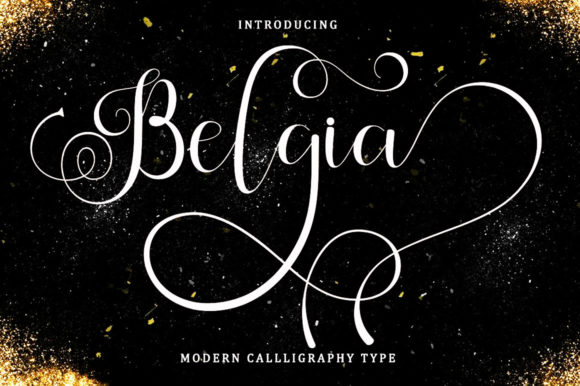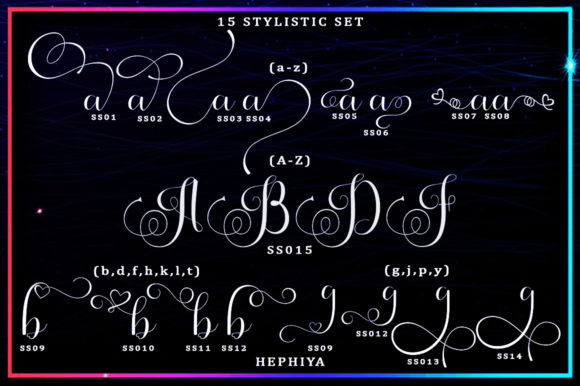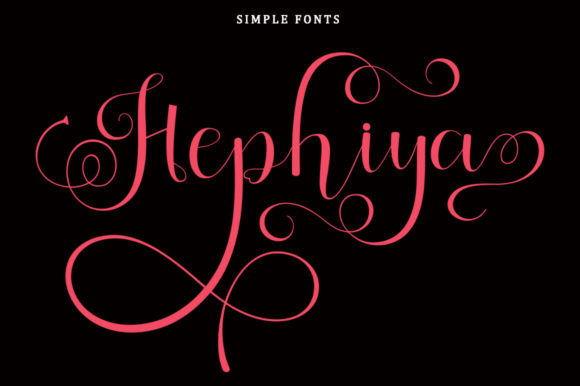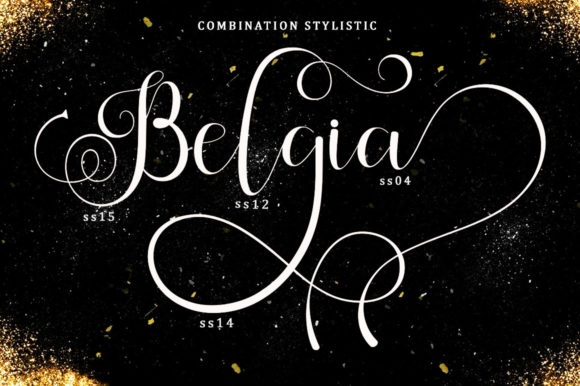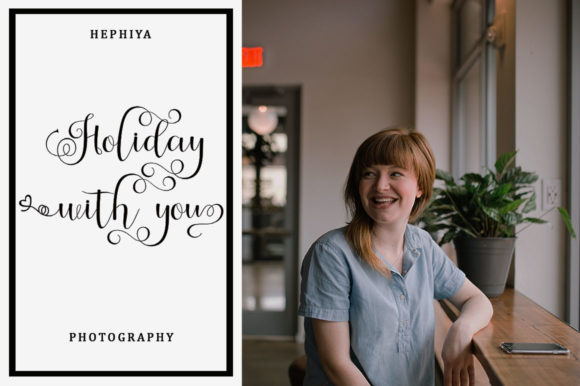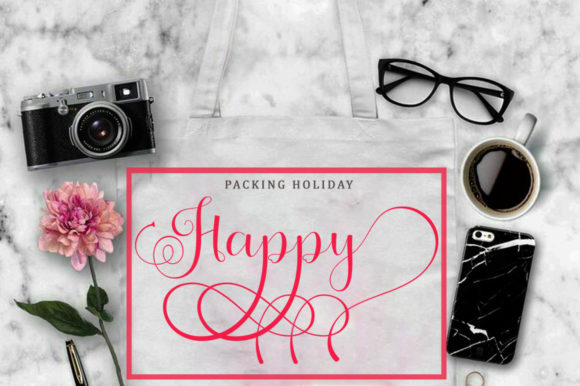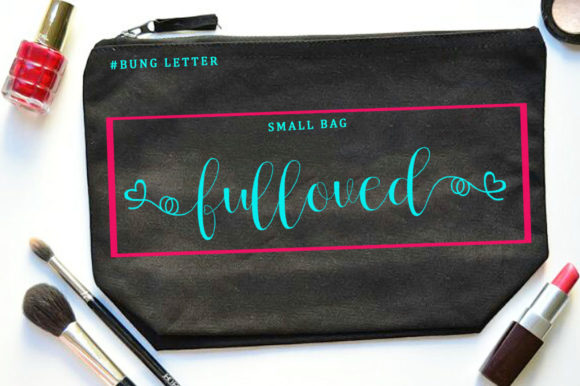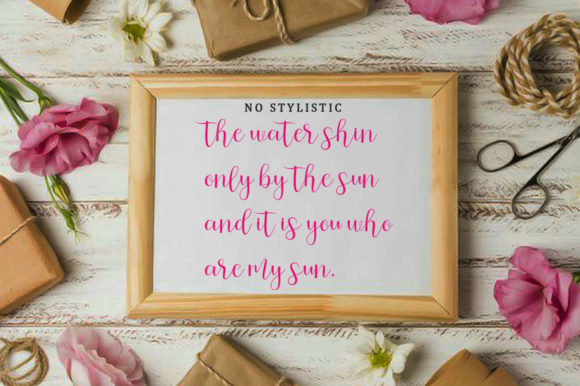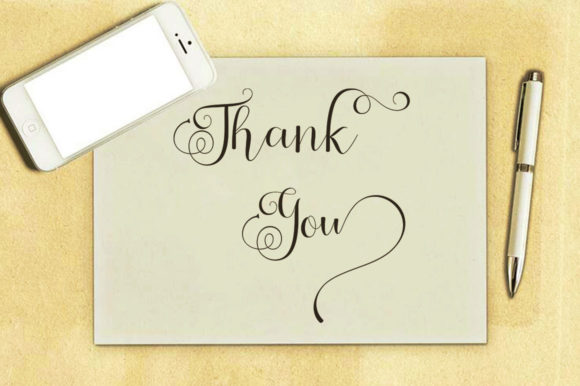
Belgia Font
About Belgia Font
Belgia is playful and romantic, but also fancy. This versatile script font has a wide range of applications ranging from headlines to personal branding, and is guaranteed to add a handmade touch to your next design.